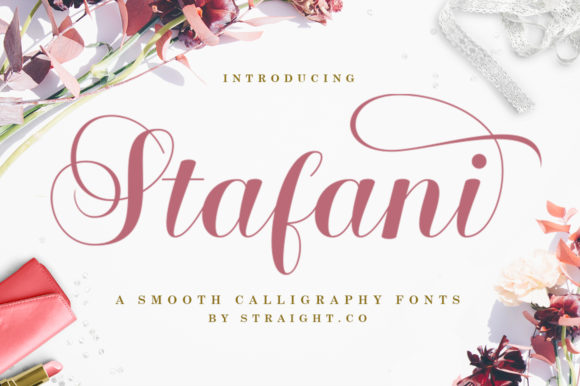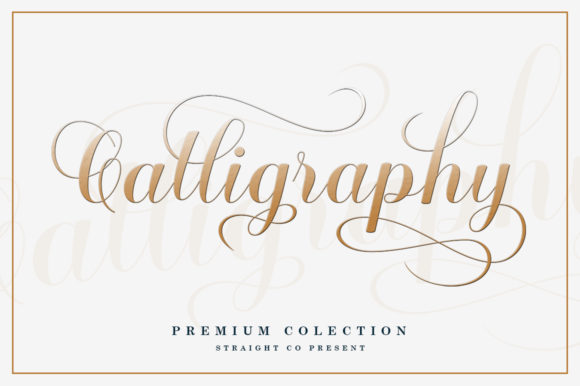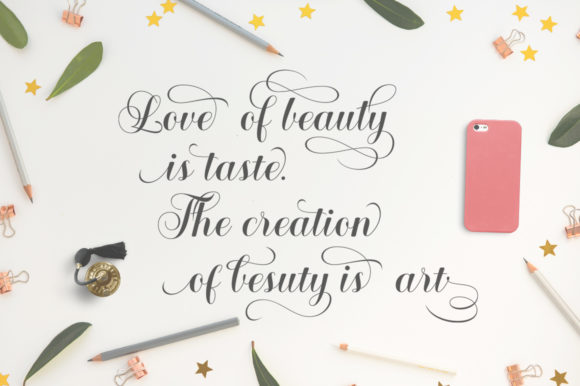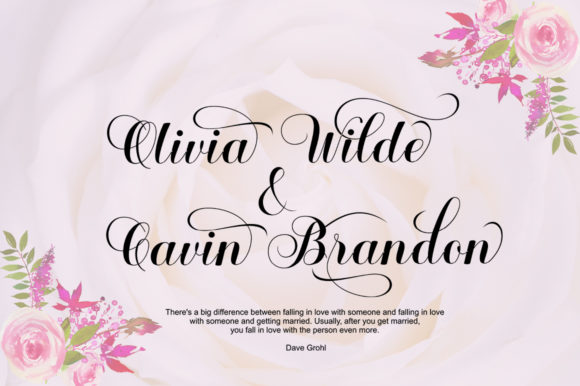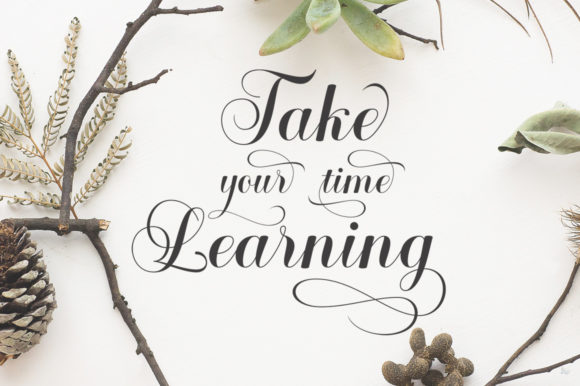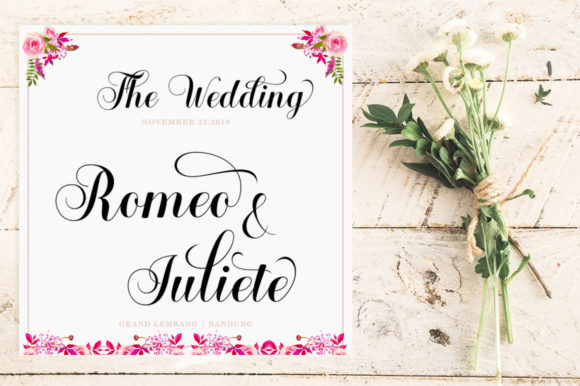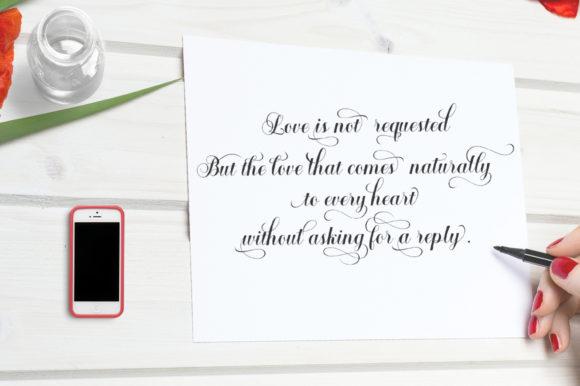
Stafani Font
About Stafani Font
Fall in love with Stafani. This amazing handwritten font is inspired by classic calligraphy and will add a bold twist to any design idea.